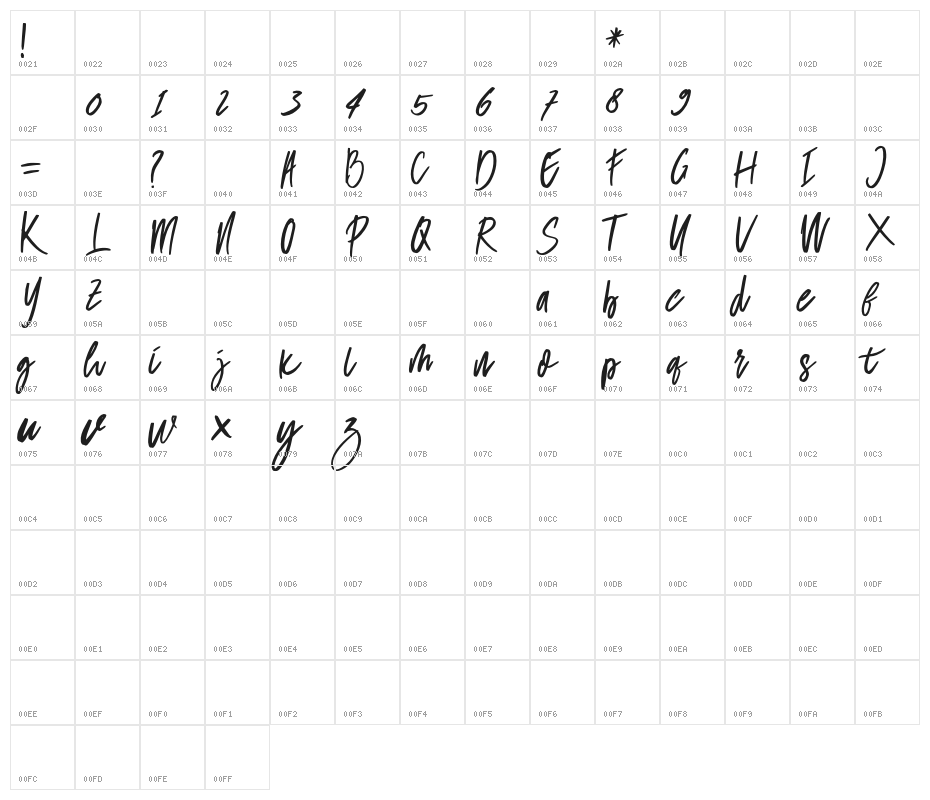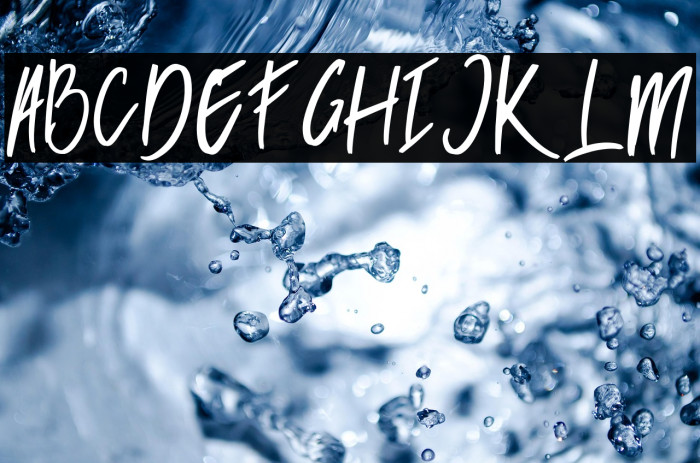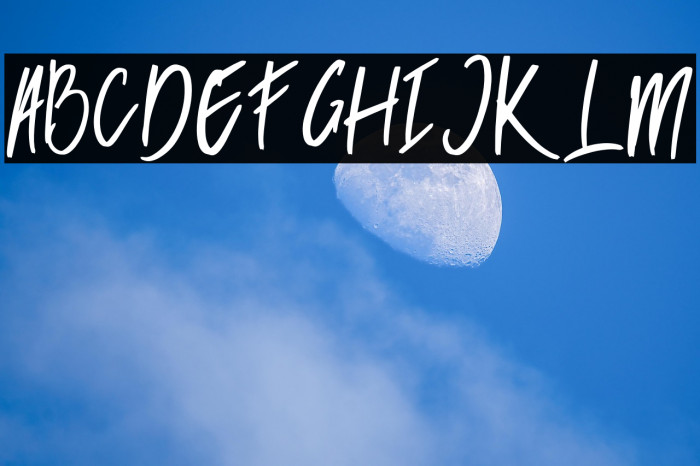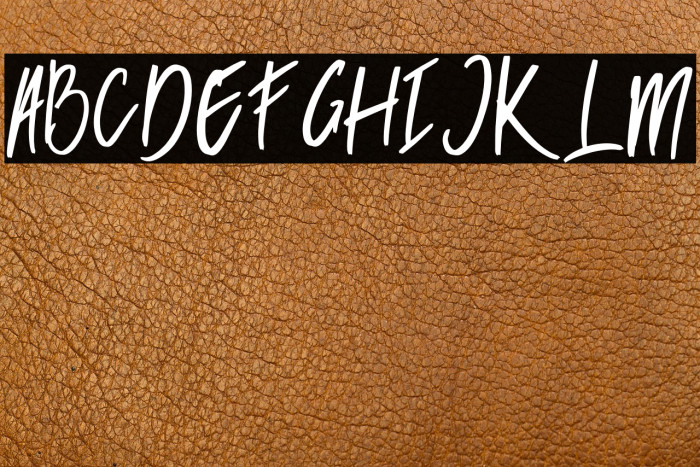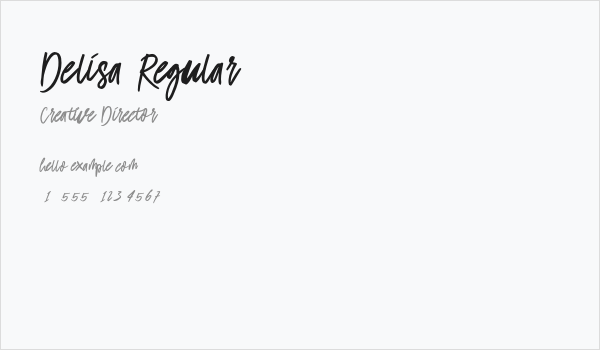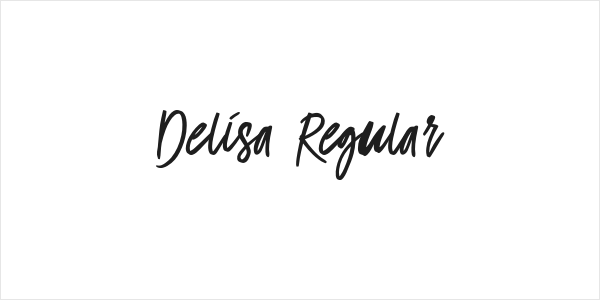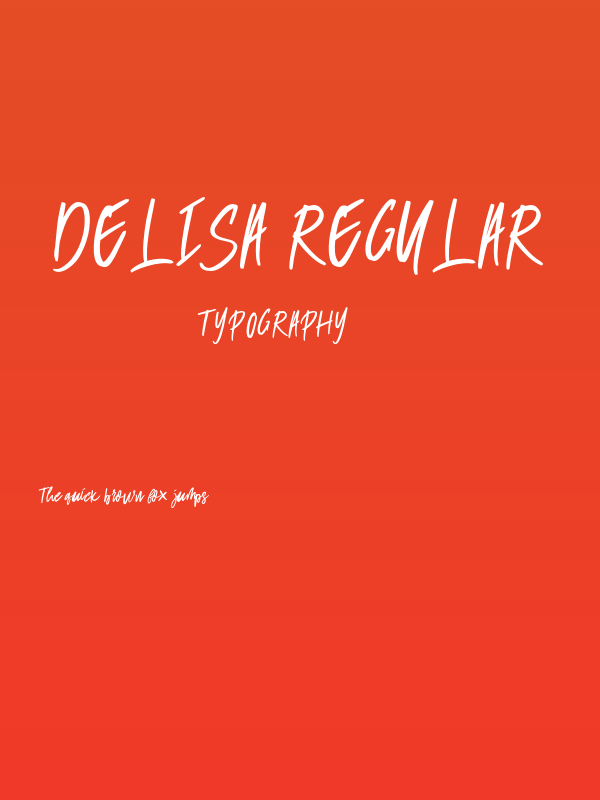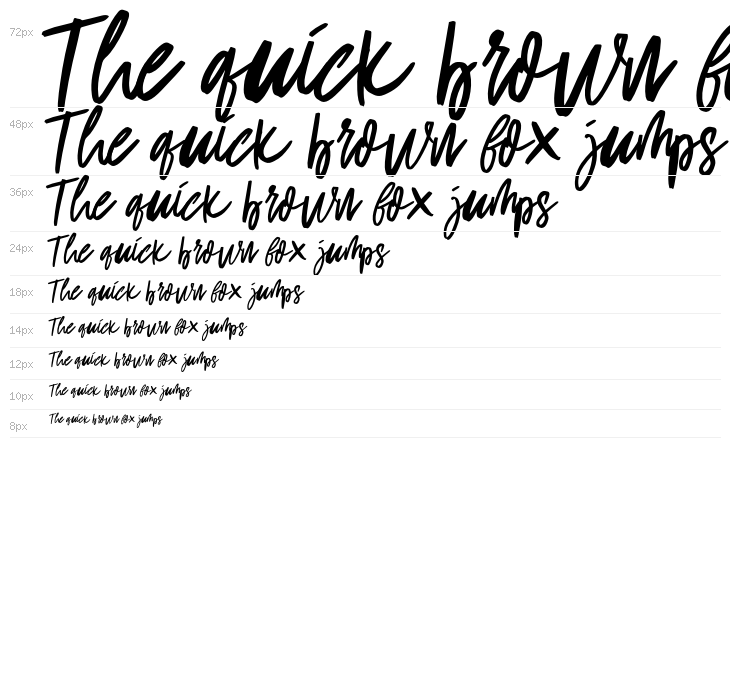
Delisa-Regular Font
Delisa-Regular Description
This font features a dynamic and expressive handwritten style, characterized by its fluid and cursive strokes. The uppercase letters are bold and slightly slanted, giving a sense of movement and energy. The lowercase letters maintain a consistent flow, with some characters extending below the baseline, adding to the font's casual and informal appearance. The numbers are clear and legible, matching the overall style of the alphabet. Special characters are included, maintaining the same handwritten aesthetic. This font is ideal for projects that require a personal touch or a creative flair.